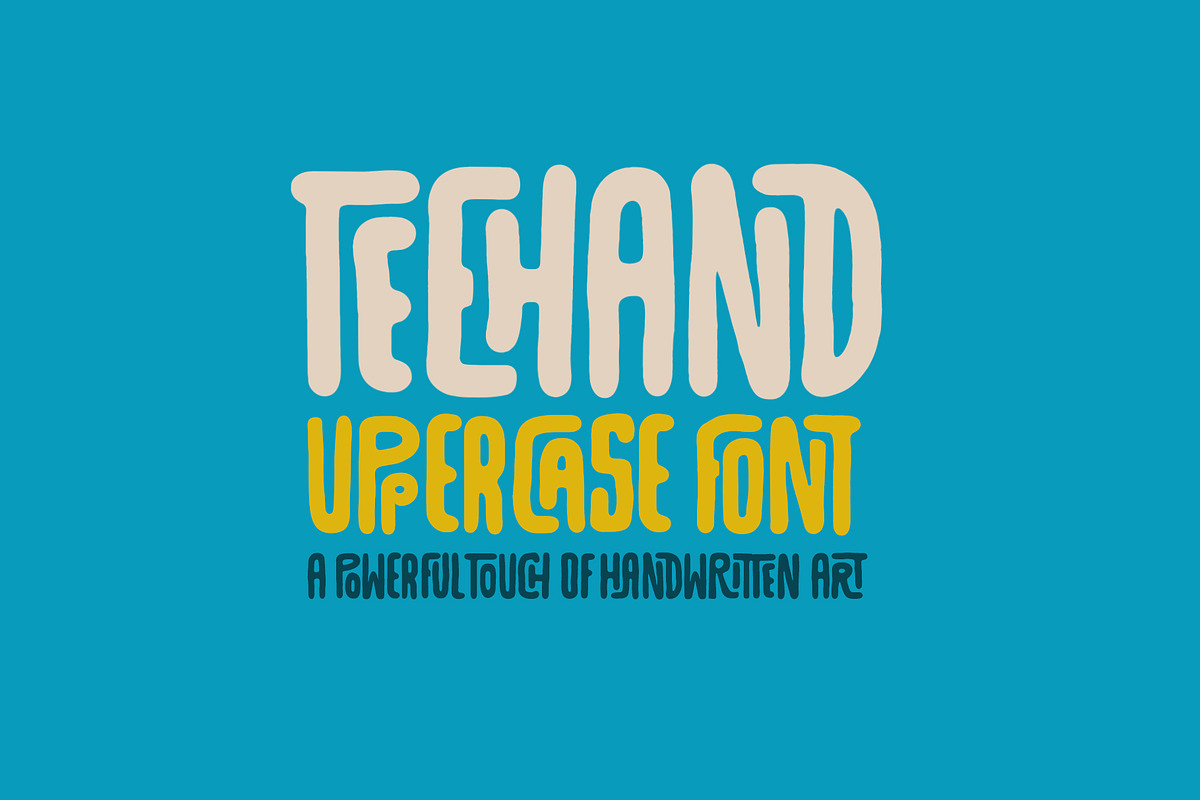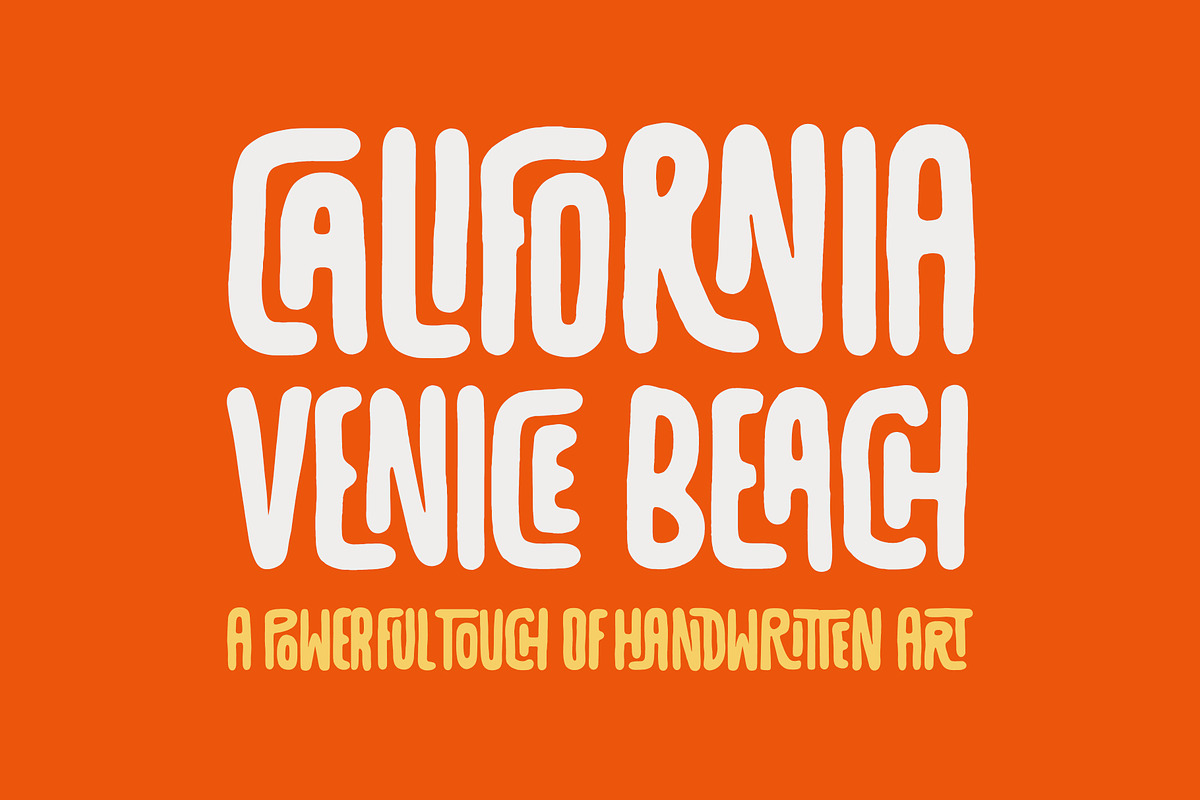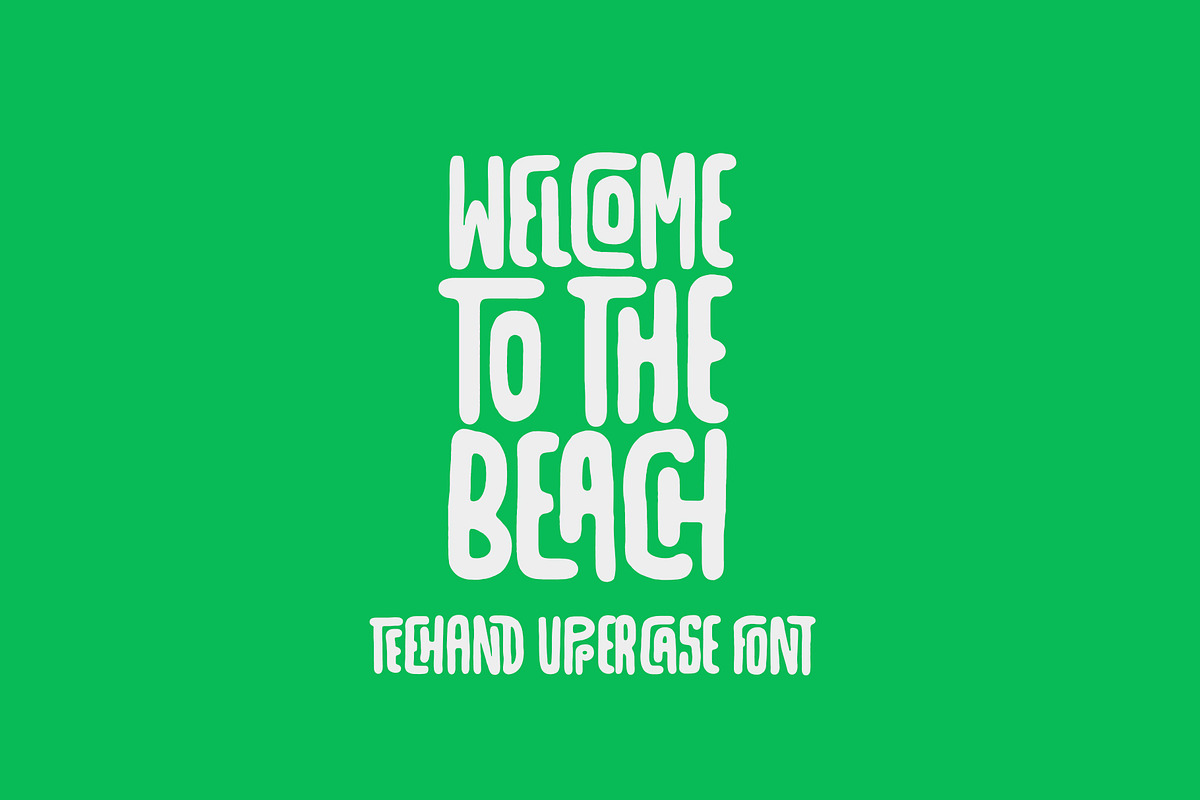
Teehand Uppercase Font
Teehand Uppercase Font is a handcrafted display typeface built entirely from bold, expressive capital letters. Its textured strokes and organic letterforms deliver a natural, artistic feel that fits perfectly with fashion branding, logos, packaging, posters, and modern creative projects. Provided in .otf and .ttf formats, it brings a strong, stylish handmade character to any design.